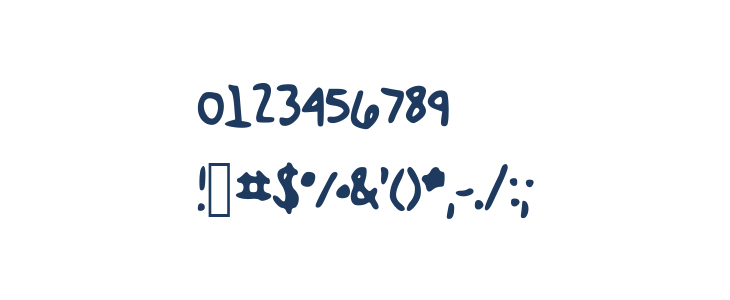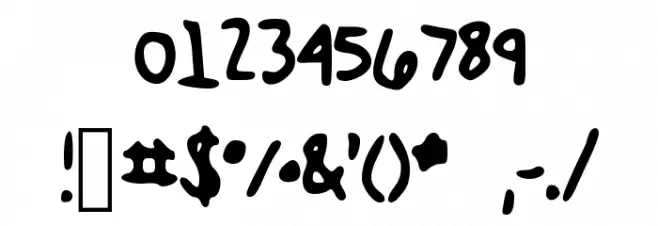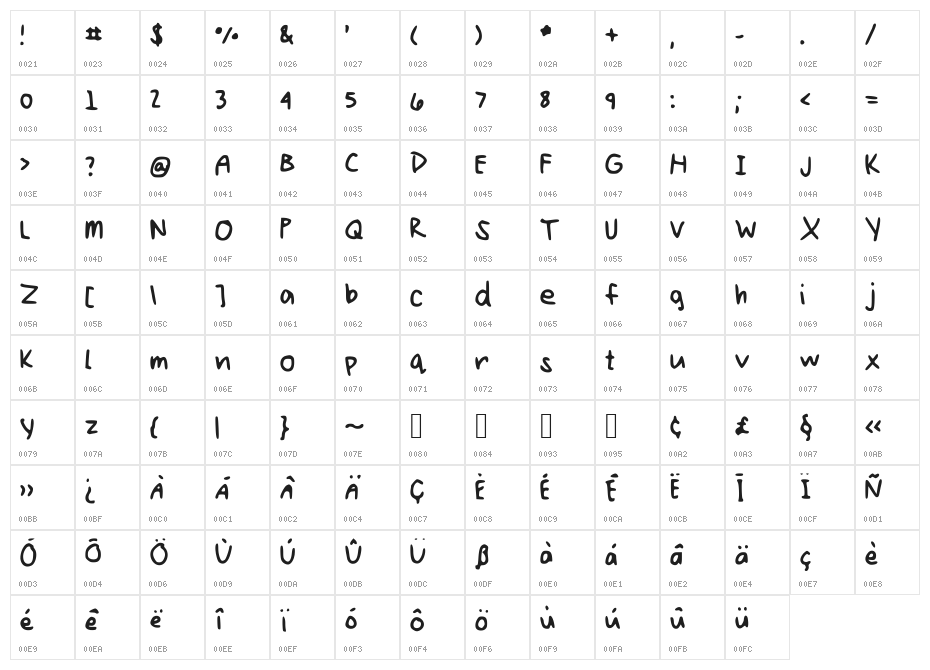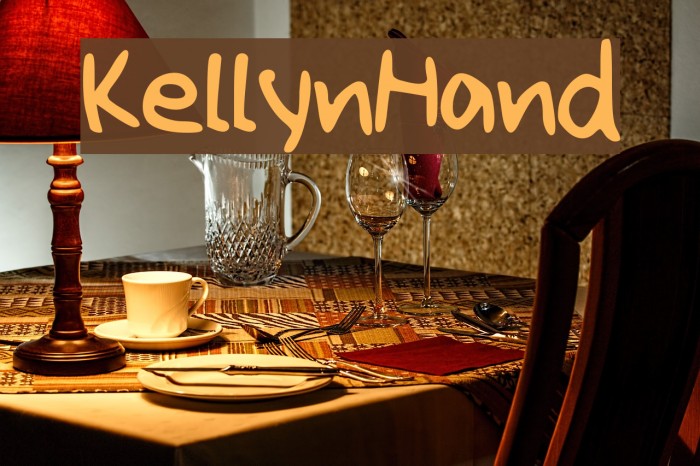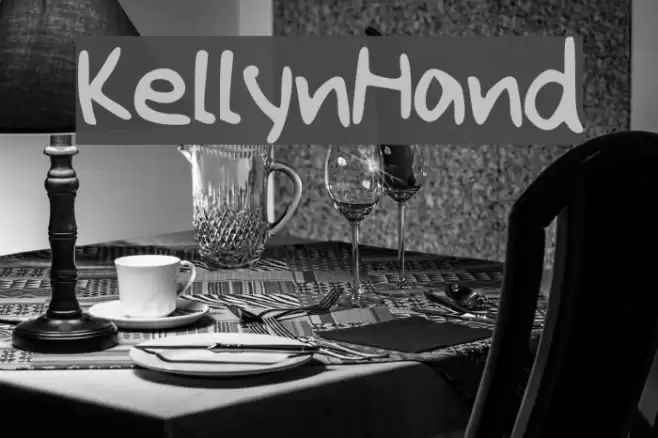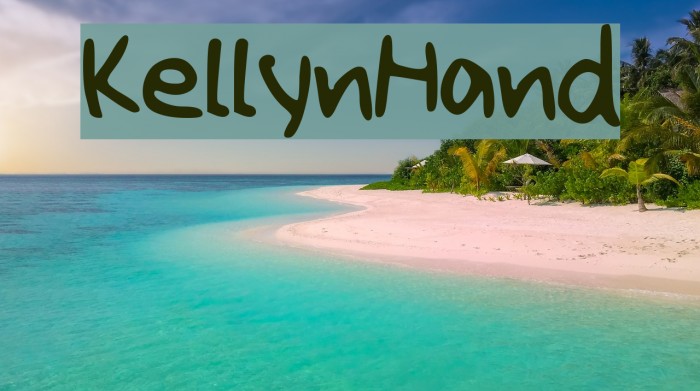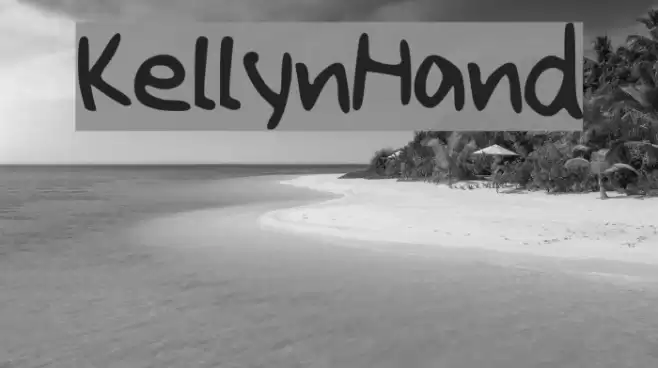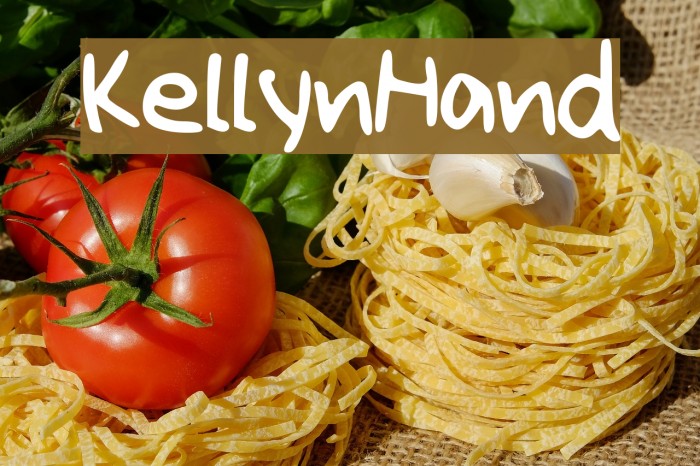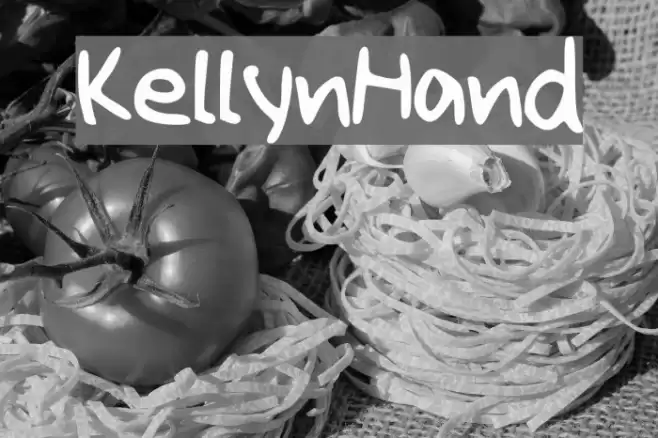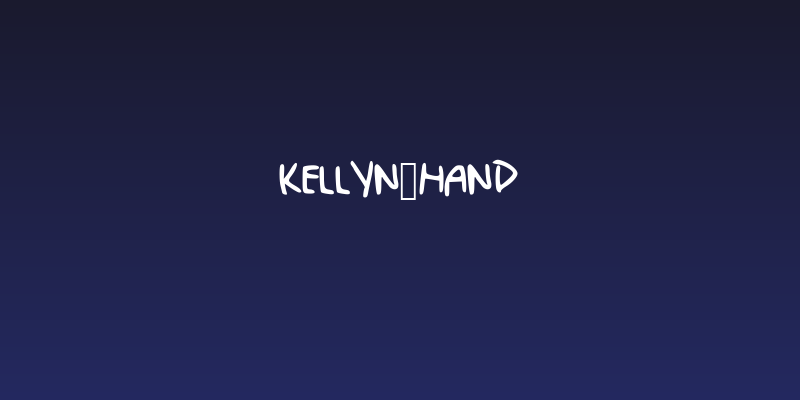
Kellyn_Hand Font
Kellyn_Hand Description
This font features a playful and casual handwritten style, characterized by its rounded and slightly irregular letterforms. The strokes are bold and consistent, giving it a friendly and approachable appearance. The uppercase and lowercase letters maintain a uniform height, contributing to a cohesive look. The numerals and special characters are designed with the same playful aesthetic, making them easily legible. This font's informal style is perfect for projects that require a personal touch or a sense of whimsy.
| Proposed Projects | Ideal for greeting cards, children's books, playful branding, and casual invitations. |